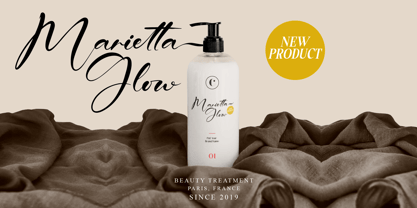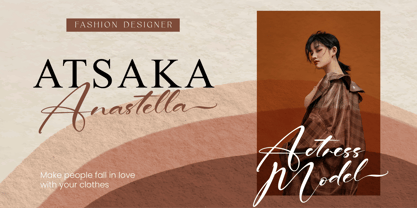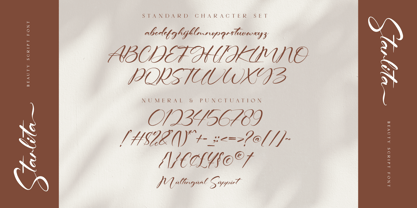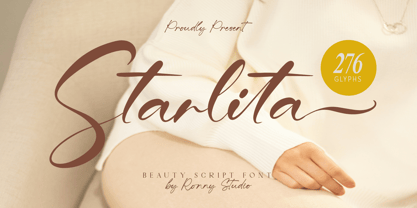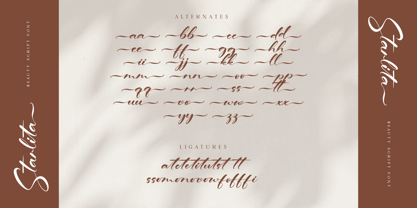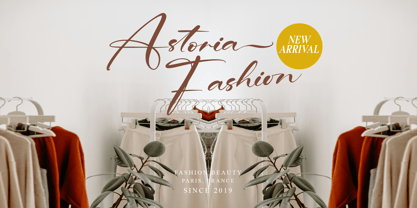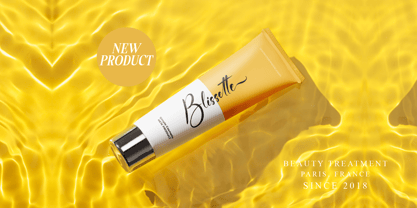
Starlita
by Ronny Studio
The Starlita Font Family was designed by Rony Rizki Jaya and published by Ronny Studio. Starlita contains 1 styles. More about this family
Starlita is a modern script font designed with a natural flow, exuding elegance and charm. Its smooth curves and stylish strokes make it perfect for logos, branding, quotes, product packaging, social media, and more. Whether you're creating wedding invitations or luxury branding, Starlita adds a unique touch of sophistication.
Designers: Rony Rizki Jaya
Foundry: Ronny Studio